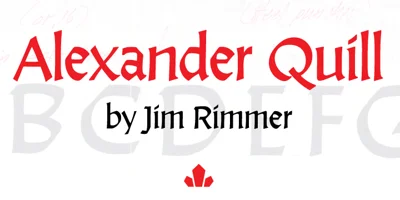
Alexander Quill Font
Alexander Quill Font is ideal for literary publications, poetry books, historical novels, vintage bookstores, classical education institutions, manuscript reproductions, antiquarian services, and scholarly journals that require authentic handwritten typography with intellectual sophistication and scholarly elegance.
What makes Alexander Quill Font exciting is its remarkable ability to recreate the artistry of historical manuscript writing with modern precision. This elegant typeface features flowing strokes and ink-inspired characteristics that evoke the golden age of penmanship, making it perfect for brands seeking to communicate intellectual authority, literary heritage, and scholarly distinction.
The Alexander Quill Font family includes regular, italic, and ornamental weights, complemented by extensive ligatures and decorative flourishes for authentic manuscript aesthetics. Each variation maintains the font's characteristic scholarly elegance while providing designers with comprehensive calligraphic tools for creating distinguished layouts and intellectual communications.
Literary professionals consistently select Alexander Quill Font for projects requiring authentic scholarly appeal and intellectual credibility. This versatile typeface seamlessly bridges historical authenticity with contemporary readability, ensuring brand messages resonate with audiences seeking genuine intellectual experiences and academic excellence.
The font's scholarly heritage and manuscript authenticity make it particularly suitable for educational institutions and literary organizations. Alexander Quill Font delivers exceptional intellectual impact while ensuring optimal legibility, offering designers a distinguished solution for creating memorable brand identities that communicate wisdom, scholarship, and literary excellence across prestigious academic and cultural marketing applications.